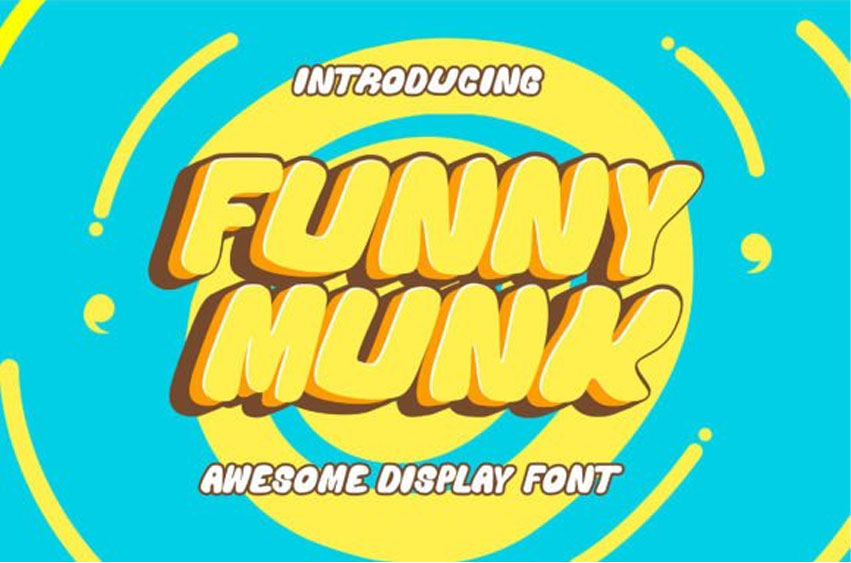
Funny Munk Font Cute and Thick display Font perfect for baby showers, posters, school banners, playground posters, kids’ stores, seasonal parties, and a wide range o contexts.